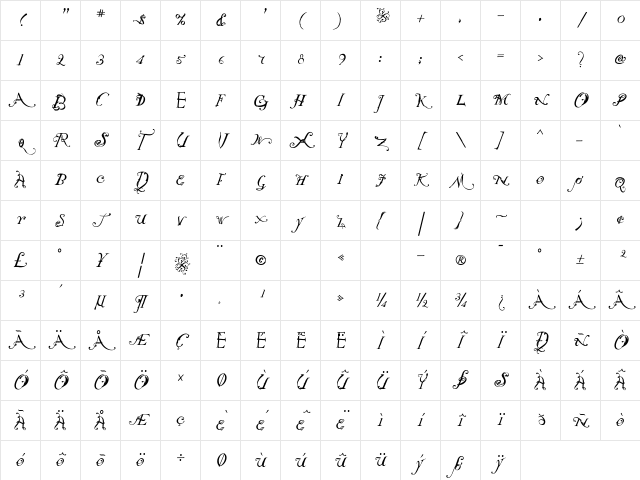
Complete NotCaslonOne Roman glyph index. Displaying only characters natively supported by NotCaslonOne Roman font.
NotCaslonOne is a composed and adaptable typeface that performs quietly and consistently across a wide range of design contexts.